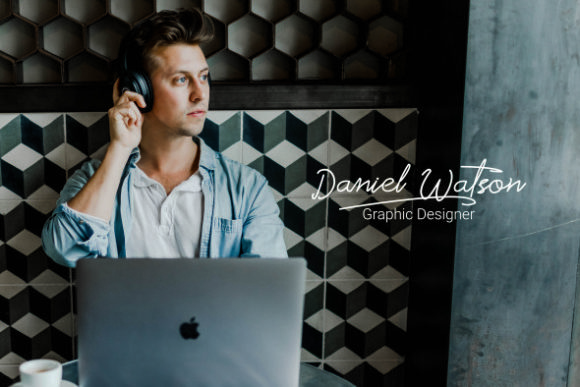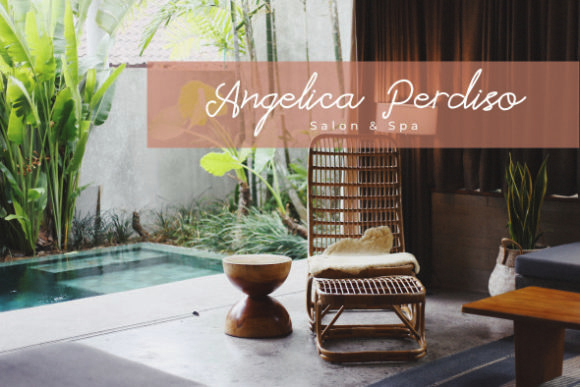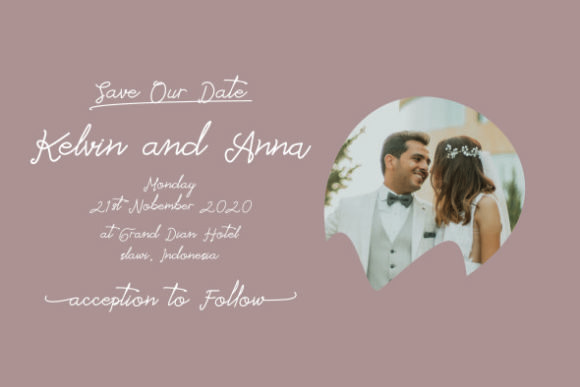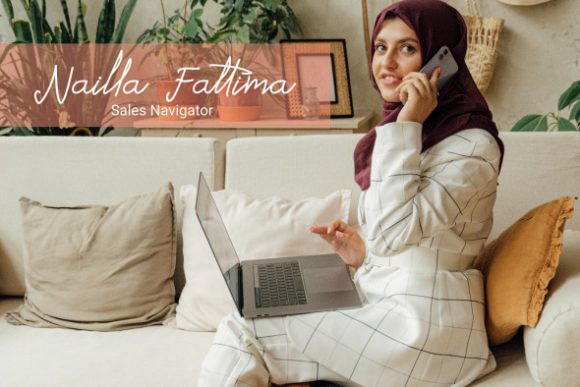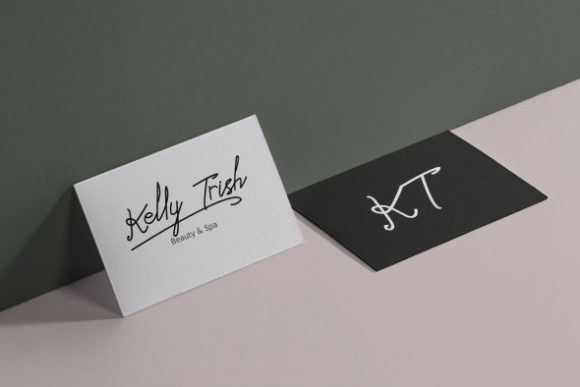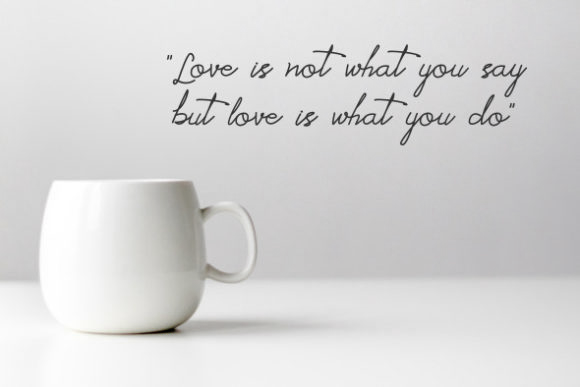
Introducing Alessandro Signature Font: Elevate Your Designs with Elegance
Are you tired of using the same old fonts in your designs? Look no further! Alessandro Signature Font is a delicate and elegant handwritten font that is sure to take your creations to the next level. Its distinct and well-rounded letters make this font a masterpiece, perfect for designers and crafters looking to add a touch of sophistication to their work.
The Characteristics of Alessandro Signature Font
Alessandro Signature Font boasts a unique and versatile style that sets it apart from other fonts. Its delicate and elegant handwritten letters are carefully crafted to provide a sense of refinement and luxury. The font’s well-rounded letters make it easy to read and understand, while its distinct characteristics add a touch of personality to any design.
The Benefits of Using Alessandro Signature Font
So, why choose Alessandro Signature Font for your designs? Here are just a few benefits of using this incredible font:
- Versatility: Alessandro Signature Font is incredibly versatile, making it perfect for a wide range of design projects, from wedding invitations and branding materials to social media graphics and more.
- Elegance: The font’s delicate and elegant style adds a touch of sophistication to any design, making it perfect for designers and crafters looking to create high-end visuals.
- Readability: The font’s well-rounded letters make it easy to read and understand, ensuring that your message is communicated clearly and effectively.
How to Use Alessandro Signature Font in Your Designs
Using Alessandro Signature Font in your designs is easy! Here are a few tips to get you started:
- Pair it with other fonts: Alessandro Signature Font pairs perfectly with other fonts, such as sans-serif fonts like Arial or Helvetica. Experiment with different font combinations to find the perfect look for your design.
- Use it for headings and titles: The font’s elegant style makes it perfect for headings and titles. Use it to add a touch of sophistication to your design and draw attention to important information.
- Add a personal touch: Alessandro Signature Font is perfect for adding a personal touch to your designs. Use it to create custom illustrations, such as hand-drawn quotes or phrases.
Design Ideas Using Alessandro Signature Font
Alessandro Signature Font is perfect for a wide range of design projects. Here are a few ideas to get you started:
- Wedding invitations: The font’s elegant style makes it perfect for wedding invitations, save-the-date cards, and other wedding-related materials.
- Branding materials: Use Alessandro Signature Font to create custom branding materials, such as logos, business cards, and letterheads.
- Social media graphics: The font’s versatility makes it perfect for social media graphics, such as Facebook posts, Instagram stories, and Twitter headers.
- Illustrations: Alessandro Signature Font is perfect for creating custom illustrations, such as hand-drawn quotes or phrases.
In conclusion, Alessandro Signature Font is a delicate and elegant handwritten font that is sure to elevate your designs to the next level. Its distinct and well-rounded letters make this font a masterpiece, perfect for designers and crafters looking to add a touch of sophistication to their work. With its versatility, elegance, and readability, Alessandro Signature Font is the perfect choice for a wide range of design projects.